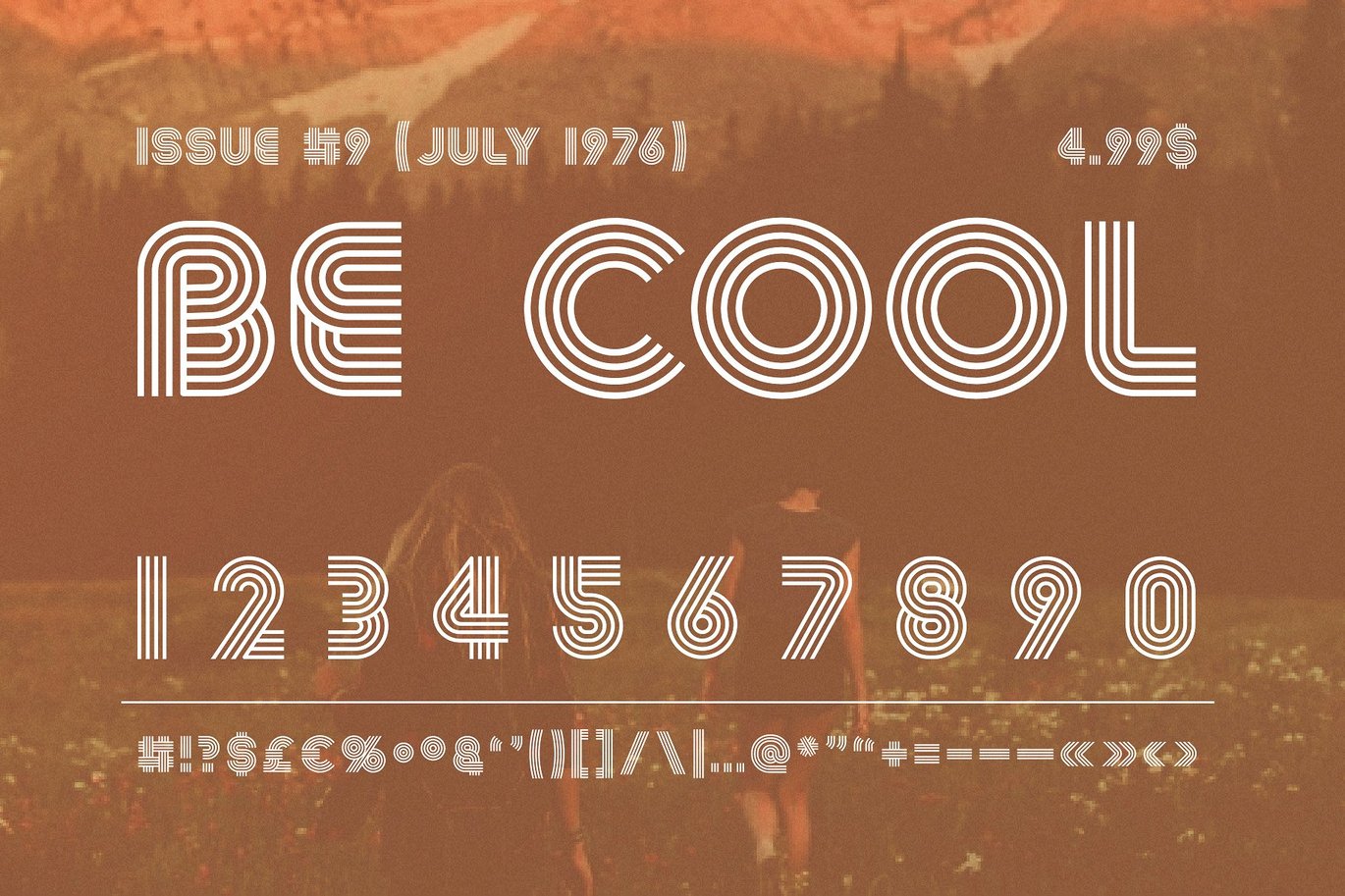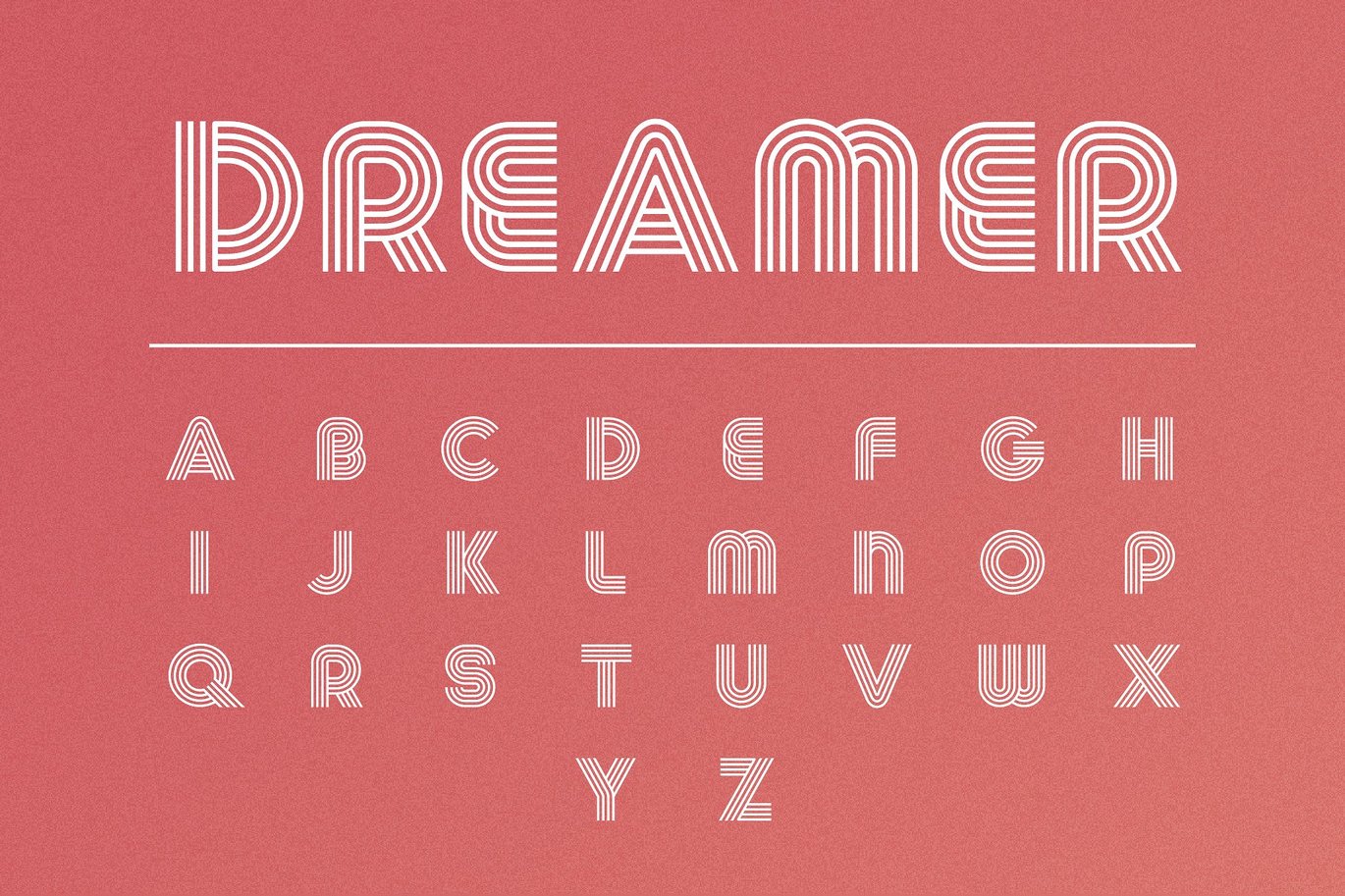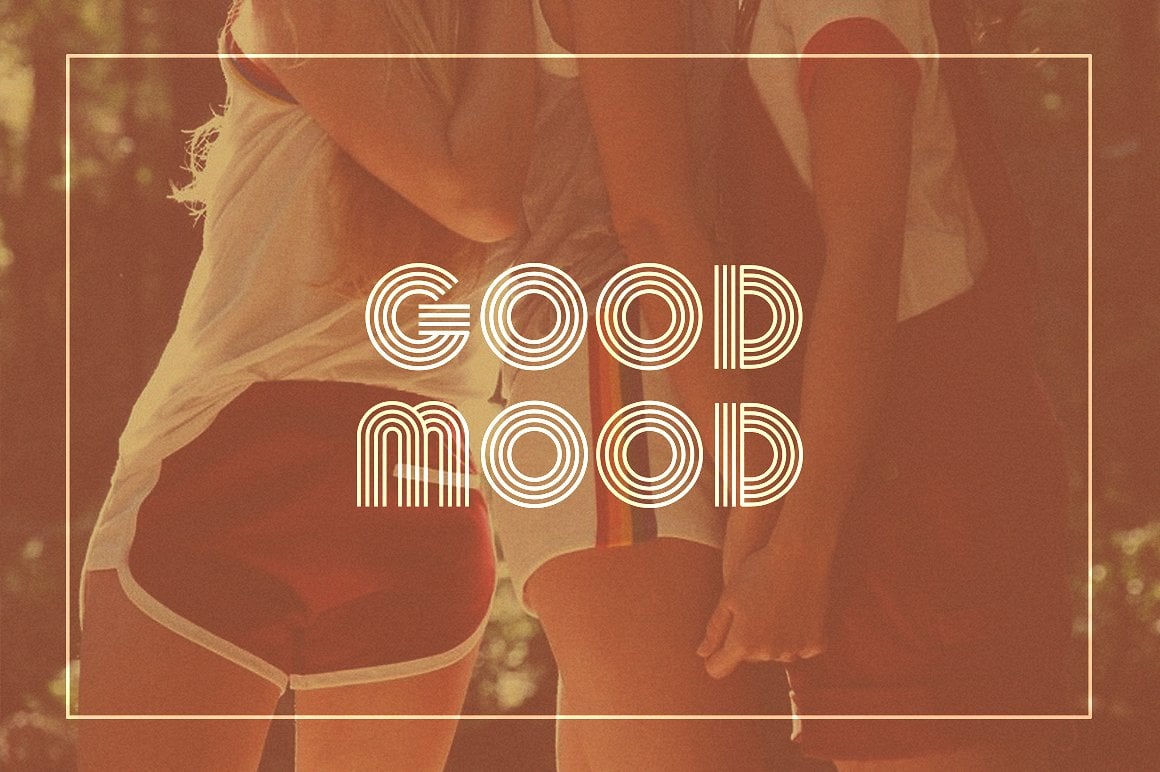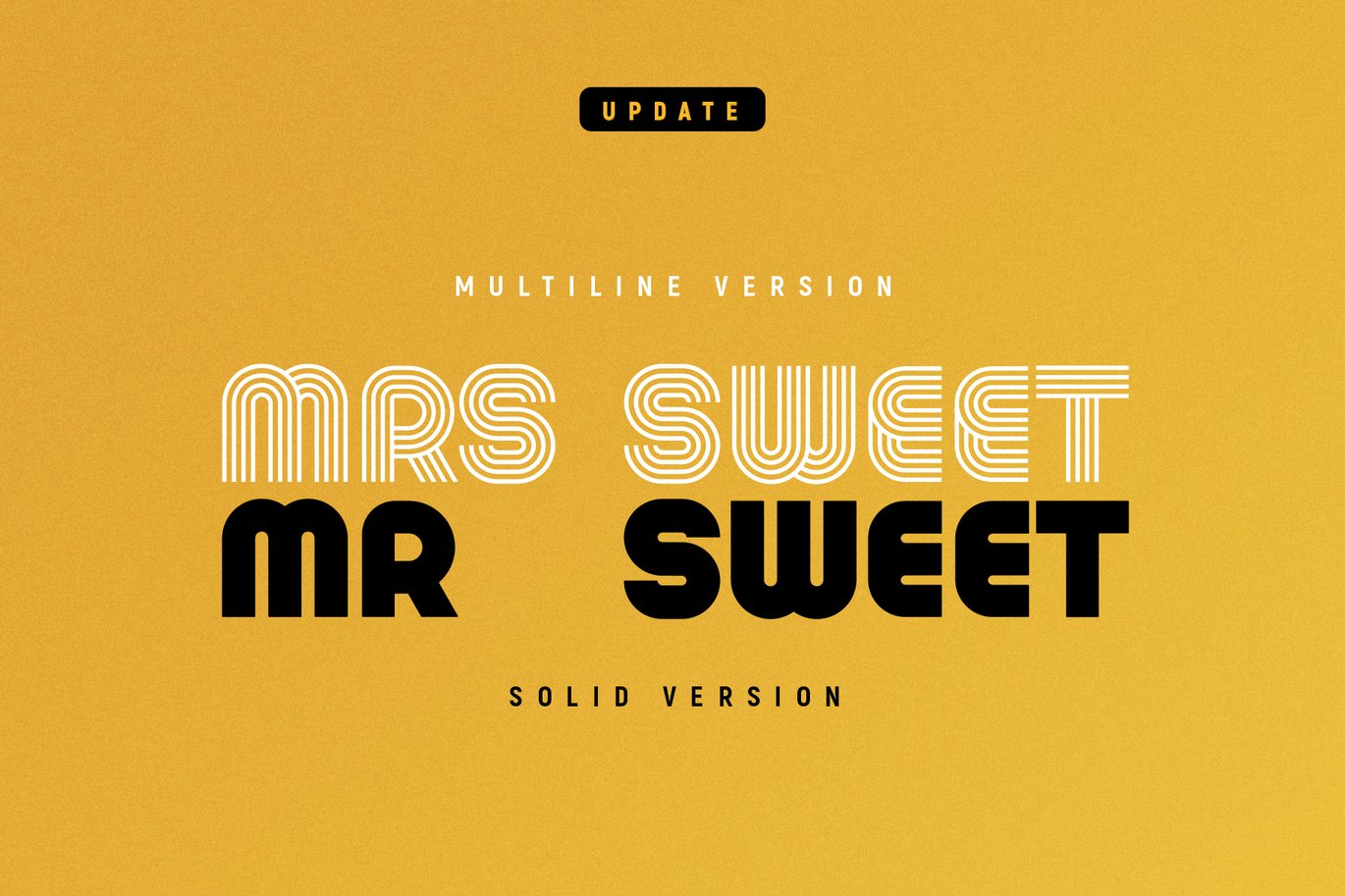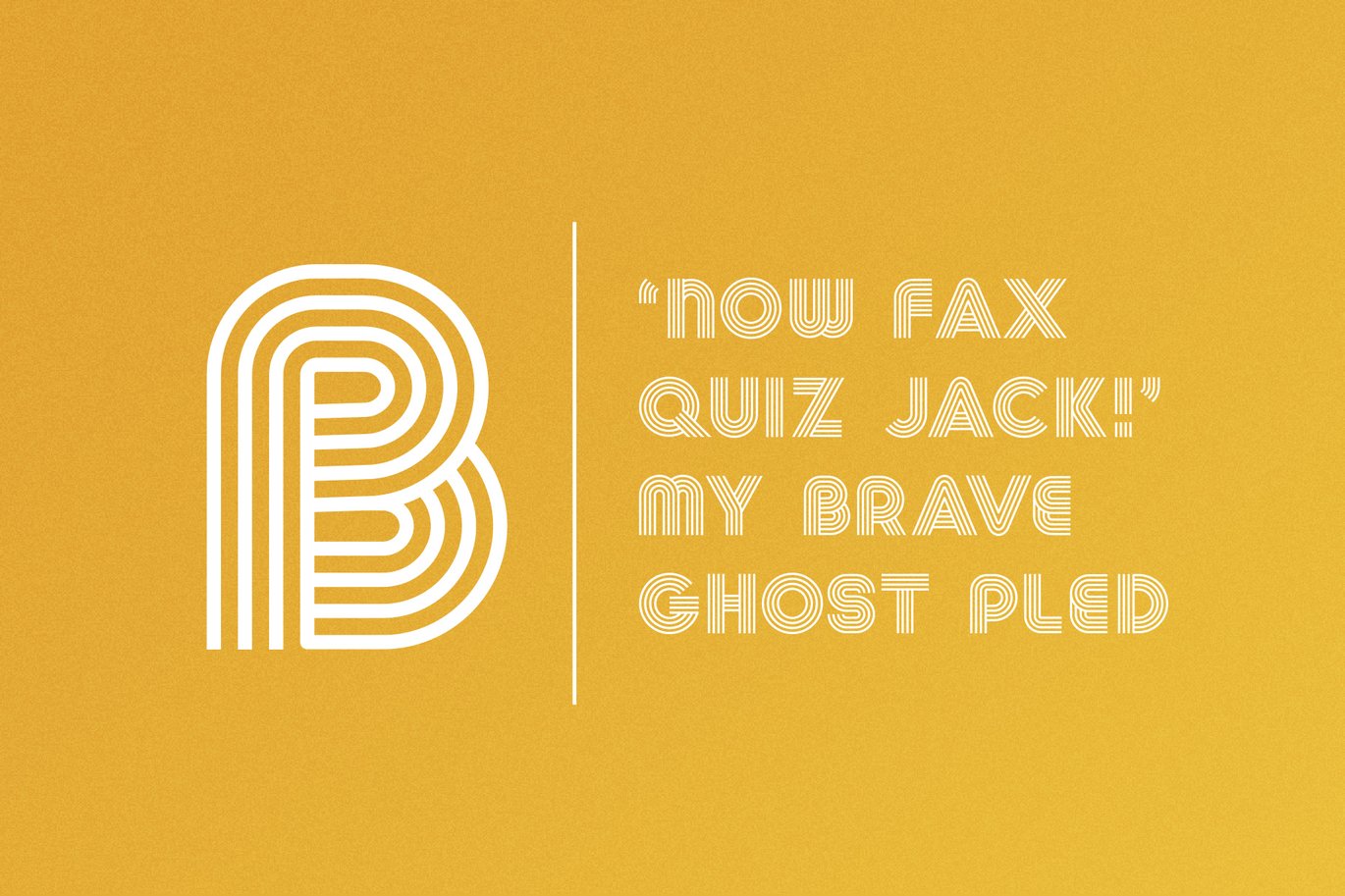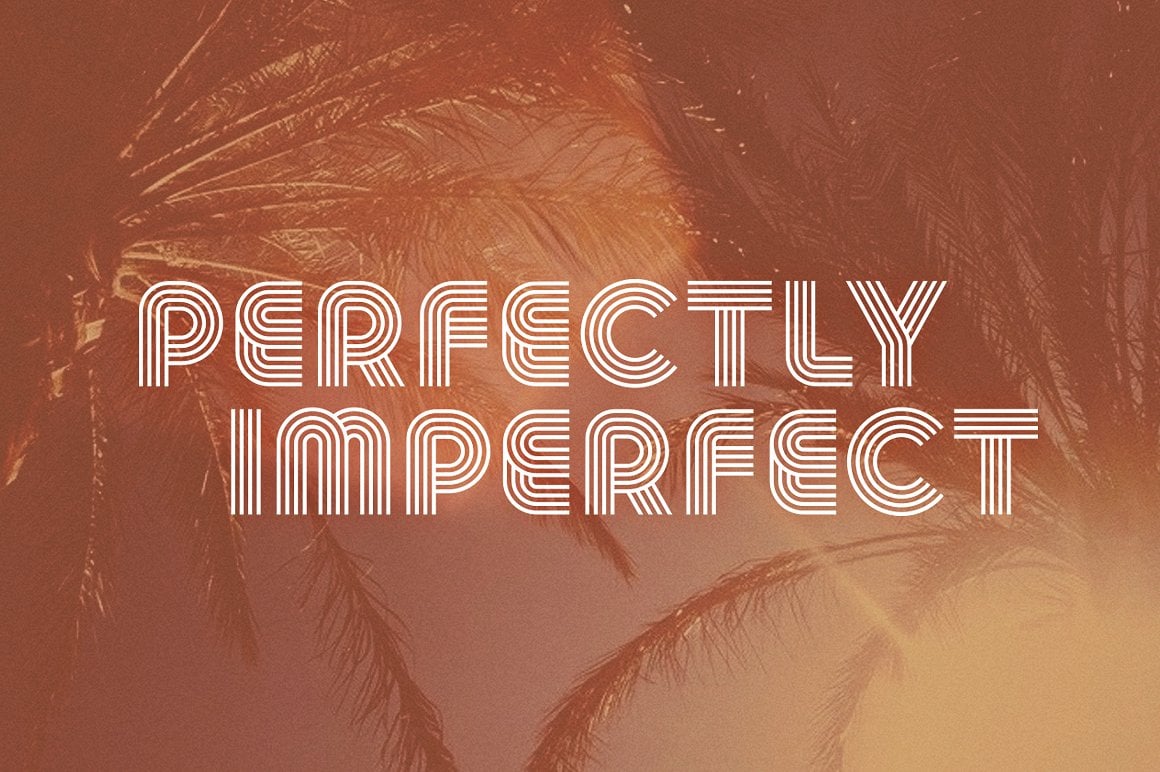
Summer 0f 76 – Multi-Line Font
Introducing Summer of ’76, a sophisticated multi-line font inspired by the nostalgic 70’s aesthetic. Perfect for big headers, it also can be used for medium and small text blocks. This font could be the perfect solution if you want to give a lovely retro touch to your designs. This font goes in two font styles, multiline and solid, and contains numbers and glyphs.